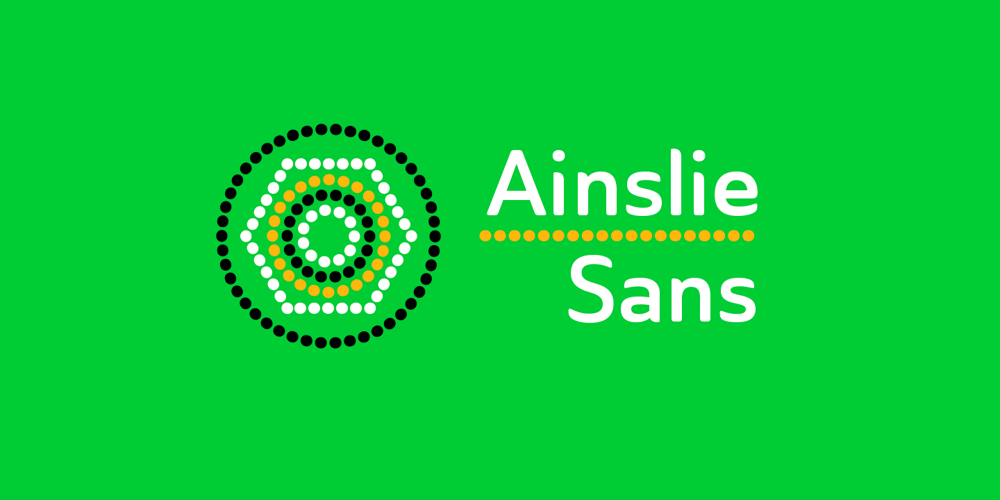
Ainslie Sans Font Family was designed by Jeremy Dooley and published by insigne. Ainslie Sans contains 42 styles and family package options. Say g’day to Ainslie Sans, insigne Design’s new typeface. Like its big brother, the new face incorporates a mix of influences from Oz, although Sans is pared down from the original semi-serif. The original Ainslie was inspired by Mt. Ainslie and the city of Canberra’s inner suburb of the same name. Canberra is Australia’s capital–a planned city designed by American architect Walter Burley Griffin. Griffin’s style and geometric design for the city, which include Mt. Ainslie, are now also the same structure that make up the foundation of Ainslie Sans. Unlike the original Ainslie family member, though, Ainslie Sans does away with much of the aboriginal-inspired touches by eliminating the semi-serifs, forcing the font to borrow more heavily than its predecessor from Canberra’s distinct, geometric design and style. The result’s a spiffy Australian font that’s usable within a wide array of applications. The trendy typeface incorporates a multitude of alternates. You can access these in any OpenType-enabled application. Alternates, swashes and alternate titling caps allow you to customize the look and feel. Also incorporated are capital swash alternates, old style figures, and compact caps. Check out the PDF brochure to view these options in action. OpenType enabled applications can take complete benefit of your automatic replacing ligatures and alternates. This font also presents the glyphs to help a wide array of languages. Try it for copy. Try it for a headline. Try it alongside the original Ainslie. Whichever way suits you best, give it a burl. You won’t be sad you did.